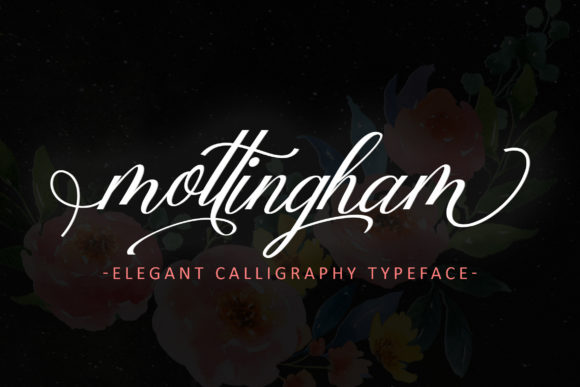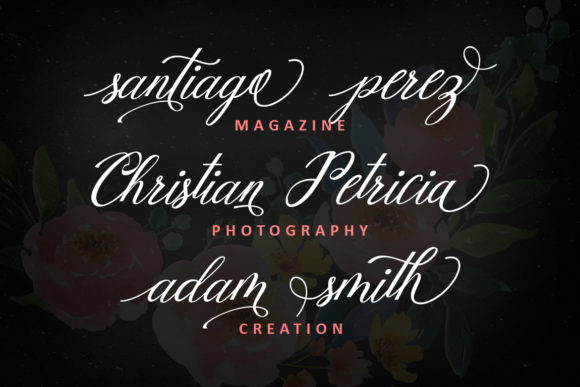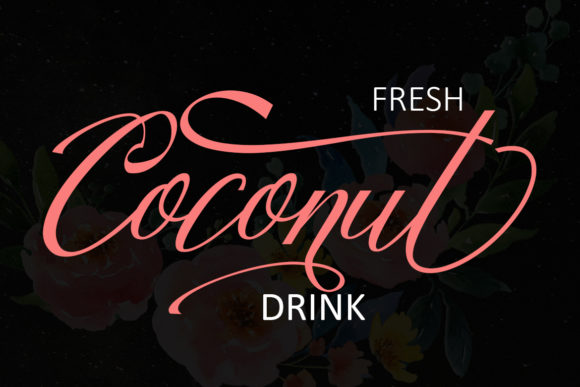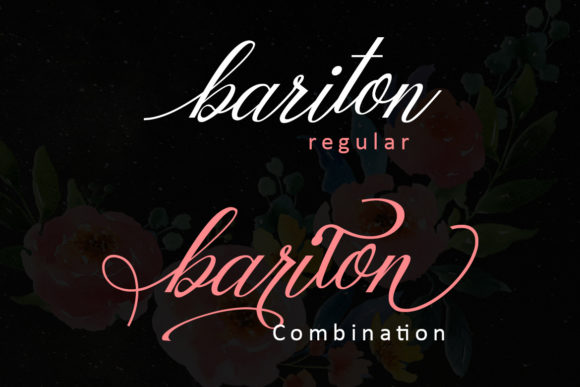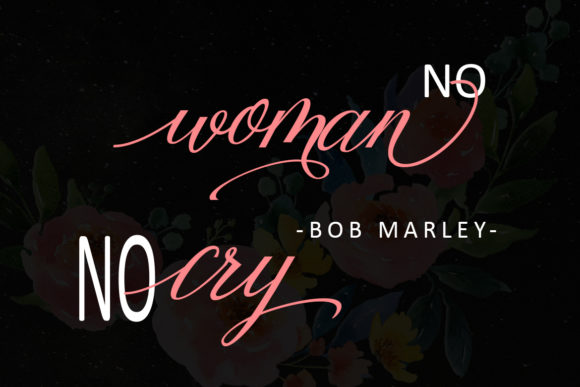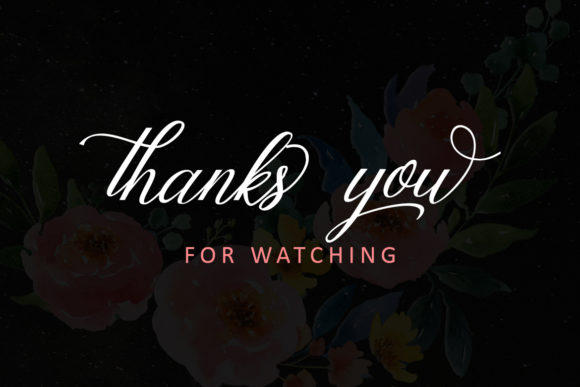
Mottingham Font
About Mottingham Font
Introducing The Mottingham, a stylish handwritten script font that seamlessly combines a classic look with a dancing baseline, creating a perfect blend for adding an elegant touch to your designs. This font is more than a mere typeface; it’s a versatile design asset suitable for various purposes, including headings, signatures, logos, wedding invitations, t-shirts, letterheads, signage, labels, news, posters, badges, and much more.
The classic look of The Mottingham brings a timeless quality to your designs, making it an ideal choice for a wide range of applications. Whether you’re working on formal invitations, branding materials, or creating a classic logo, The Mottingham’s stylish and handwritten script provides a touch of sophistication.
The dancing baseline adds a dynamic and fluid quality to the font, bringing a sense of movement and liveliness. This feature enhances the overall elegance of The Mottingham, making it stand out in various design contexts.
Use The Mottingham for headings and signage to create eye-catching displays that draw attention with their classic and stylish appearance. Incorporate it into logos and branding materials to establish a refined and elegant visual identity.
From wedding invitations to t-shirts, letterheads to news articles, and posters to badges, The Mottingham adapts seamlessly to diverse design needs. Its versatility makes it a valuable addition to your creative toolkit, allowing you to infuse an elegant touch into a wide array of projects.
In summary, The Mottingham is not just a font; it’s a stylish and versatile design tool that adds a classic and elegant touch to your creative endeavors. Embrace its timeless appeal and let The Mottingham elevate your headings, logos, invitations, and more with its sophisticated handwritten script.